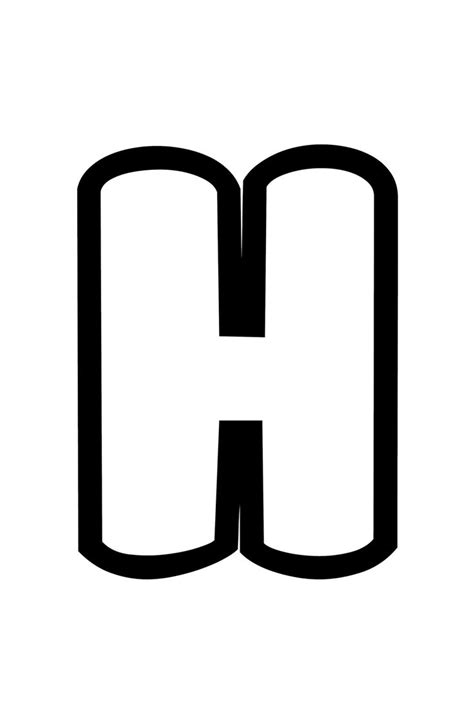
Bubble Letter H: Fonts, Styles, & Design Ideas
Readers, have you ever wondered how to create a visually stunning bubble letter H that pops off the page? This captivating font style, known for its playful, rounded curves, is a popular choice for everything from birthday cards to logos. It's a versatile design element that can be tailored to match any occasion or brand aesthetic. I've spent years analyzing the world of fonts and graphic design, and I can confidently say that mastering the art of bubble letter H design is a rewarding journey!
The Allure of Bubble Letters: A Dive into the World of Rounded Fonts
The charm of bubble letters lies in their ability to infuse any design with a sense of whimsy and joy. Their rounded forms evoke a sense of playfulness and informality, making them perfect for projects that require a touch of lightheartedness. While they excel at capturing a playful spirit, bubble letters can also be sophisticated and elegant. It all comes down to the font style, color choices, and overall design elements you incorporate.
The History of Bubble Letters: From Graffiti to Graphic Design
Bubble letters have a rich history rooted in street art and graffiti. Their origins can be traced back to the 1970s, where they were popularized by graffiti artists as a way to create eye-catching and expressive lettering. The distinctive rounded shapes of bubble letters were a natural fit for the bold and vibrant aesthetics of street art, and they quickly gained popularity among artists and designers. As bubble letters transitioned from the streets to the world of graphic design, they adapted to different mediums and styles.
The Psychology of Bubble Letters: How Our Brains Perceive Rounded Shapes
The rounded shapes of bubble letters have a profound psychological impact on our brains. They evoke a sense of warmth, comfort, and familiarity. These positive associations make bubble letters a popular choice for designs that aim to create a friendly and welcoming atmosphere. The rounded shapes also convey a sense of movement and dynamism, making them ideal for designs that want to capture a sense of energy and excitement.
Exploring the World of Bubble Letter H Fonts: A Guide to Choosing the Perfect Style
When it comes to crafting a bubble letter H, you have a vast array of fonts at your disposal. Each font brings its own unique personality to the table, and understanding these nuances will help you choose the ideal style for your project.
1. Classic Bubble Letter H Fonts: Timeless Elegance
Classic bubble letter fonts are characterized by their simple, rounded forms. They are typically bold and easily recognizable, making them a perfect choice for designs that require a straightforward and impactful visual. These fonts often have a vintage feel, reminiscent of classic cartoons or children's books. Popular examples of classic bubble letter H fonts include:
- Comic Sans MS
- Chalkboard
- Buble's
2. Modern Bubble Letter H Fonts: A Fresh Take on a Classic
Modern bubble letter H fonts bring a contemporary twist to the classic style. They often feature more intricate details, such as unique curves, swashes, or embellishments. These fonts are perfect for designs that require a touch of sophistication and visual interest. Popular examples of modern bubble letter H fonts include:
- Scripty
- Handwritten
- Doodle Script
3. Bold Bubble Letter H Fonts: Statement-Making Designs
Bold bubble letter H fonts are designed to make a statement. They are typically thick and heavy, with exaggerated curves and bold strokes. These fonts are perfect for designs that require a strong visual impact. They can be used to create eye-catching headlines, logos, or posters. Popular examples of bold bubble letter H fonts include:
- Impact
- Stencil
- Heavy Bubble
Crafting the Perfect Bubble Letter H: Design Tips and Techniques
Now that you've explored the world of bubble letter H fonts, it's time to dive into the exciting process of designing your own masterpiece. Here's a step-by-step guide to creating captivating bubble letter H designs:
1. Start with the Basics: Sketching Your Bubble Letter H
Before jumping into digital design, take some time to sketch your bubble letter H on paper. This will help you visualize the shape, size, and proportions of your letter. Experiment with different curve shapes, thicknesses, and angles to find the style that speaks to you. Don't be afraid to embrace imperfections; they often add a touch of personality and charm.
2. Digital Design Techniques: Turning Your Sketch into a Masterpiece
Once you're happy with your sketch, it's time to bring it to life in the digital realm. Use a design software like Adobe Illustrator, Canva, or Affinity Designer. These tools offer a wide range of features for creating and manipulating bubble letter H designs. You can use vector tools to create smooth curves, experiment with different colors and textures, and add embellishments to make your bubble letter H truly unique.
3. Color Palette: Harmonizing Colors for Visual Appeal
The color palette you choose is crucial for the overall visual impact of your bubble letter H design. Consider the mood and tone you want to create. For a playful and energetic look, opt for bright and vibrant colors. For a more sophisticated and elegant look, choose a muted and refined color palette. Experiment with different color combinations to find the perfect match for your project.
4. Typography Techniques: Balancing Font Size and Weight
Typography plays a pivotal role in the overall aesthetic of your bubble letter H design. The size and weight of your font will significantly impact how it's perceived. For a bold and attention-grabbing effect, use a larger font size and heavier weight. For a more delicate and subtle look, opt for a smaller font size and lighter weight.
5. Embellishments: Adding that Extra Touch of Style
Embellishments can add a touch of whimsy and personality to your bubble letter H design. Consider adding elements like shadows, gradients, or even textures to create a more layered and visually interesting look. You can also incorporate patterns, symbols, or even illustrations to enhance the overall theme of your design. The possibilities are endless!
Bubble Letter H in Action: Exploring Real-World Applications
The versatility of bubble letter H designs knows no bounds! They can be incorporated into a wide range of projects, from personal creations to professional branding. Here are just a few examples of how bubble letter H can be used to make a statement:
1. Logos and Branding: Creating a Memorable Identity
A well-crafted bubble letter H logo can be a powerful tool for building a brand identity. It can convey a sense of playfulness, warmth, and approachability, making it a popular choice for brands targeting a younger audience. By incorporating a unique bubble letter H design into your brand's visual identity, you can create a memorable and engaging experience for your customers.
2. Posters and Flyers: Making an Impact with Visuals
Bubble letter H is a perfect choice for creating bold and eye-catching posters and flyers. Use it to create impactful headlines or to highlight key information. The rounded shapes and vibrant colors can effectively grab attention and make your posters stand out from the crowd. This is especially useful for events, promotions, or announcements.
3. Stationery and Invitations: Adding a Touch of Charm
Bubble letter H can add a touch of whimsy and charm to your stationery and invitations. Use it to create personalized greetings, write your name on envelopes, or design unique invitation cards. The playful and informal feel of bubble letters makes them a great choice for personal projects or special occasions like birthdays or weddings.
Frequently Asked Questions about Bubble Letter H
What are some of the best software programs for creating bubble letter H designs?
Adobe Illustrator, Canva, and Affinity Designer are excellent choices for creating bubble letter H designs. These software programs offer a wide array of tools and features that allow you to create professional-quality designs. I recommend experimenting with different software programs to find the one that best suits your needs and design style.
How can I make my bubble letter H design stand out from the crowd?
Experiment with different font styles, color palettes, and embellishments. Don't be afraid to think outside the box and add your own personal touch. For example, consider incorporating textures, gradients, or unique shapes to make your design truly unique. You can also play around with different perspectives and angles to add depth and dimension to your letter.
What are some tips for creating bubble letter H designs that are both visually appealing and easy to read?
Choose a font style that is legible and easy to read, especially for larger text blocks. Make sure the curves of your letter are well-defined and the overall structure is balanced. Avoid using too many colors or embellishments, as these can overwhelm the design and make it difficult to read. It's important to prioritize readability while still creating a visually appealing design.
So, Readers, get ready to unleash your creativity and dive into the vibrant world of bubble letter H design. This captivating font style is a versatile tool for creating playful and eye-catching designs. By exploring different fonts, experimenting with color palettes, and mastering design techniques, you can create bubble letter H designs that are both visually stunning and impactful. Ready to try your hand at bubble letter H? Check out our other articles on graphic design and font styles for more tips and inspiration! Happy designing!